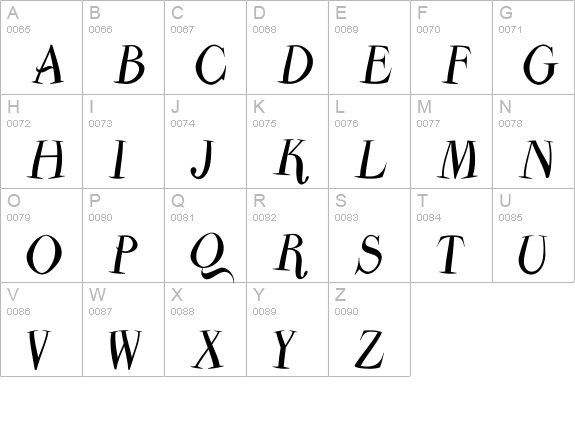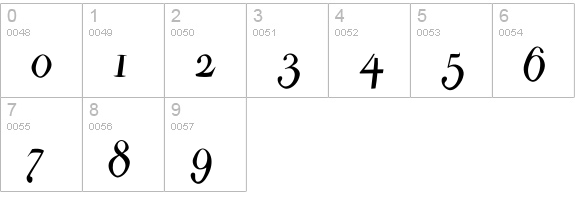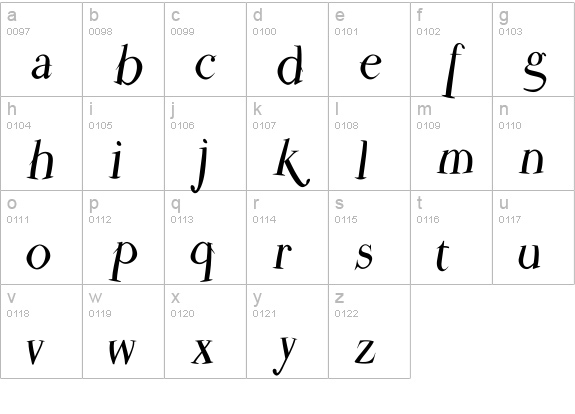
ParmaPetitFlyingRound Font Details
ParmaPetitFlyingRound is a beautiful and elegant font that will take your designs to new heights. With its rounded shapes and delicate strokes, this font exudes a sense of playfulness and sophistication. Whether you're designing a logo, creating invitations, or crafting a stunning website, ParmaPetitFlyingRound will add a touch of whimsy and charm. One of the best things about ParmaPetitFlyingRound is that it is free. That's right, you can download this amazing font at no cost from FontsMarket.com. This means that you can bring a touch of luxury to your designs without breaking the bank. Whether you're a professional designer or a hobbyist, ParmaPetitFlyingRound is a versatile font that will suit a wide range of projects. The smooth curves and intricate details of ParmaPetitFlyingRound make it a font that stands out from the crowd. Its unique character and stylish design will make your text come alive, capturing attention and leaving a lasting impression. Whether you're using it for headlines, body text, or even as an accent in your designs, ParmaPetitFlyingRound will add a touch of elegance and sophistication. So why wait? Download ParmaPetitFlyingRound for free at FontsMarket.com and start creating stunning designs today. Whether you're working on a personal project or a professional endeavor, this font will elevate your work to new heights. Don't miss out on this opportunity to add a touch of magic to your designs. Get ParmaPetitFlyingRound now and let your creativity soar.